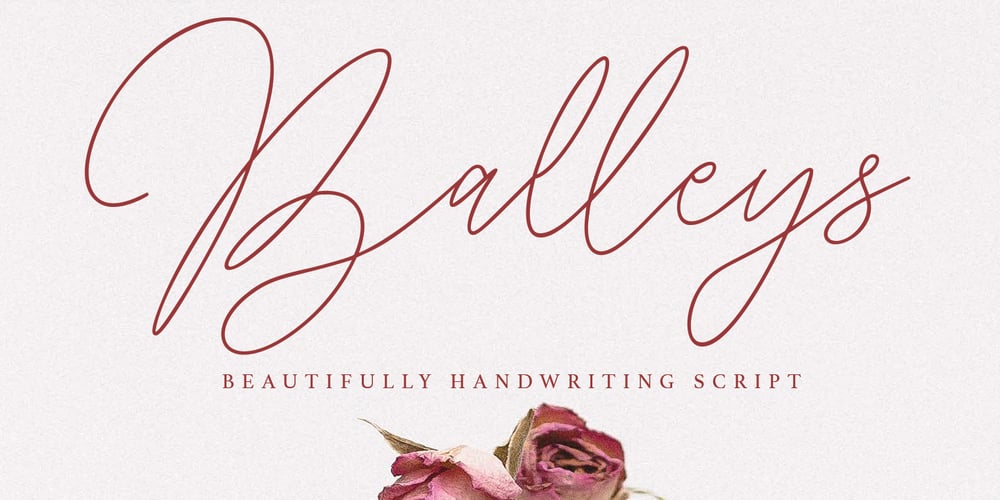
Balleys Font Family was designed by Gilang Maulana and published by Maulana Creative. Balleys contains 1 styles and family package options. Give your designs an authentic handcrafted feel. “Balleys” is perfectly suited to signature, stationery, logo, typography quotes, magazine or book cover, website header, clothing, branding, packaging design and more.